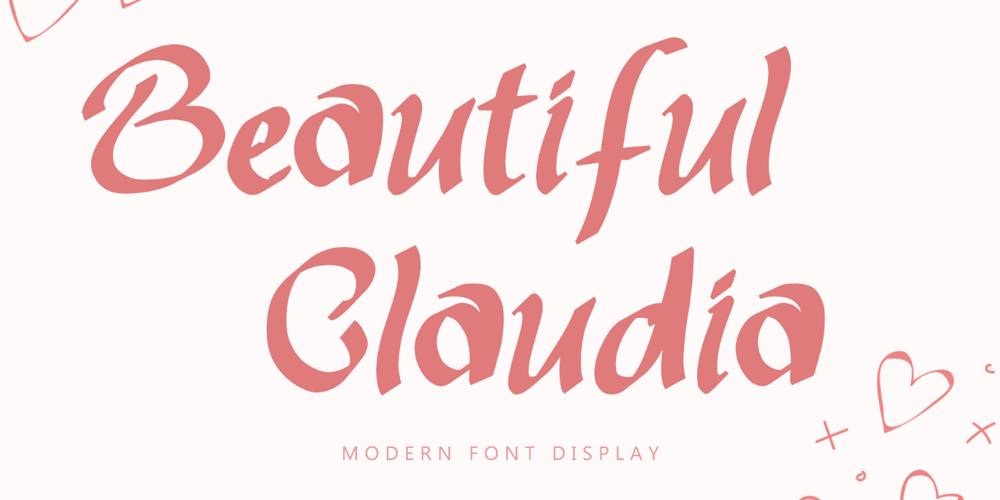
Beautiful Claudia Font Family was designed by Isroni Yoga Prasetya and published by Yoga Letter. Beautiful Claudia contains 1 styles and family package options. “Beautiful Claudia” is an elegant display font. It comes with lowercase, uppercase, numbers, punctuation, and multilingual support. It is perfect for wedding, birthday, invitation, valentine, christmas, banner, branding, sticker, poster, print, logo, etc.